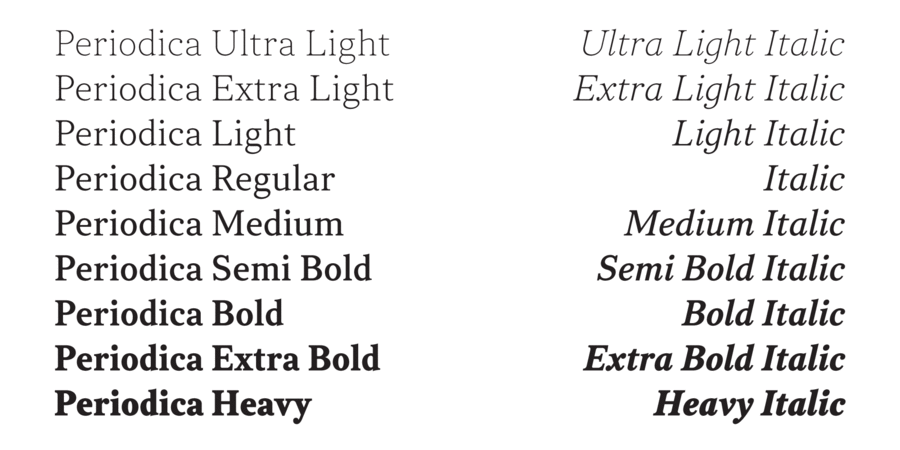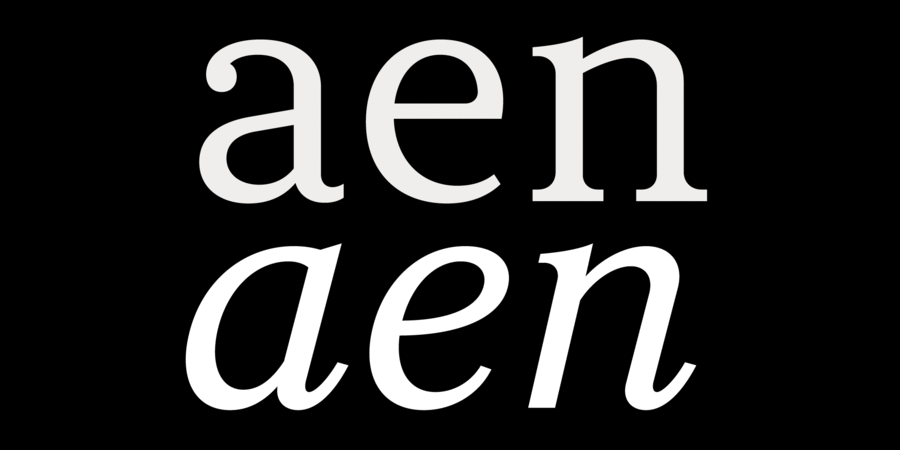
About Periodica is a transitional serif typeface with a deliberately neutral character. Its moderate x-height along with moderate contrast makes it a perfect fit for any type of long paragraph texts, on any medium – from non-fiction books to office documents, to on-screen longreads. It has a strong potential to become your next default serif typeface.
Periodica consists of 18 fonts with 9 weights and corresponding true italics. The typeface supports approximately 130 languages, including the basic Cyrillic, and contains small caps, 5 sets of digits, and other numerous OpenType features. The typeface was designed by Andriy Konstantynov at Mint Type foundry in 2024. Periodica supports 83 languagesUkrainian, English, German, Polish, Portuguese, Spanish, French, Russian, Czech, Dutch, Italian, Swedish, Turkish, Finnish, Belarusian, Serbian, Bulgarian, Estonian, Lithuanian, Albanian, Afrikaans, Basque, Breton, Valencian, Galician, Gaelic (Scottish), Danish, Indonesian, Irish, Icelandic (Win), Karakalpak, Catalan, Norwegian, Occitan, Rhaeto-Romance, Sami Lule, Tswansky, Uzbek (Lat.), Faroese, Frisian, Chamorro, Estonian (Win), South Sami, Albanian (Win), Hungarian, Upper leprechauny, Karelian, Latvian (Mac), Lithuanian (Mac), Maori (Mac), Moldovan (Lat.), Lower Sorbian, Romanian (Win), Slovak, Slovenian, Turkmen (Lat.), Croatian (Win), Estonian (Mac), Kurdish, Latvian, Maori, Romanian, Abazin, Avar, Agul, Adyghe, Darginsky, Ingush, Kabardino-Circassian, Kabardian, Karachay-Balkar, Kumyk, Lak, Lezghian, Macedonian, Mordovian-Moksha, Mordovian-Erzya, Nogai, Rutulian, Tabasaran, Tatar, Tsakhur, Chechen Functions of font family PeriodicaTypeface use in layout: